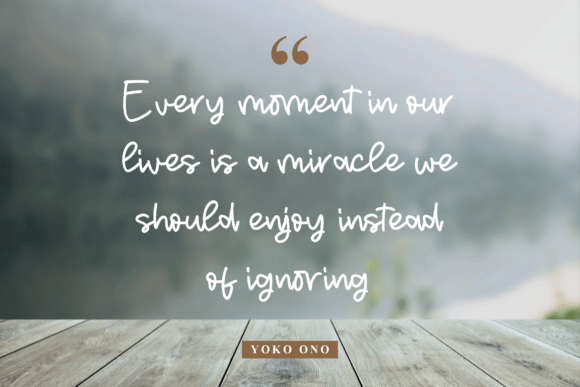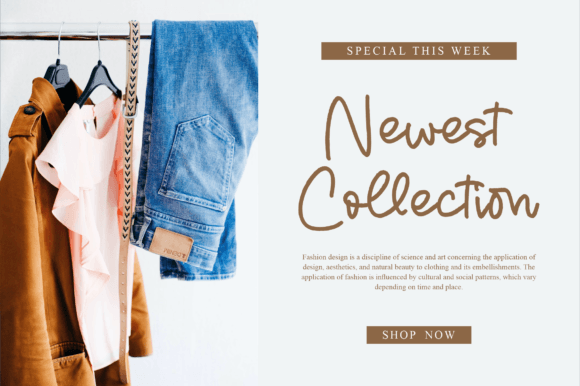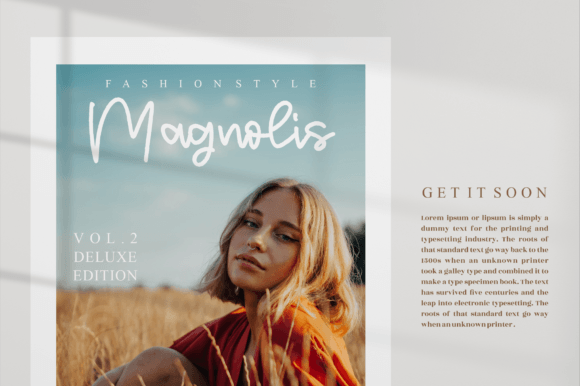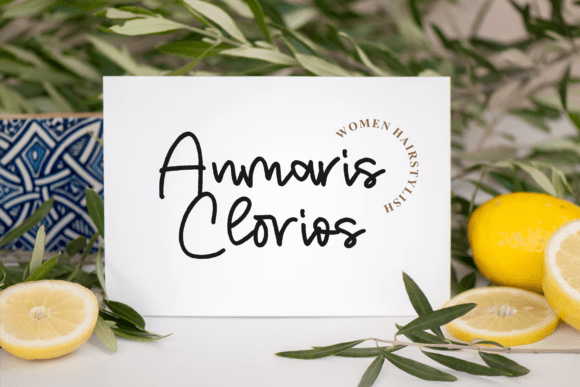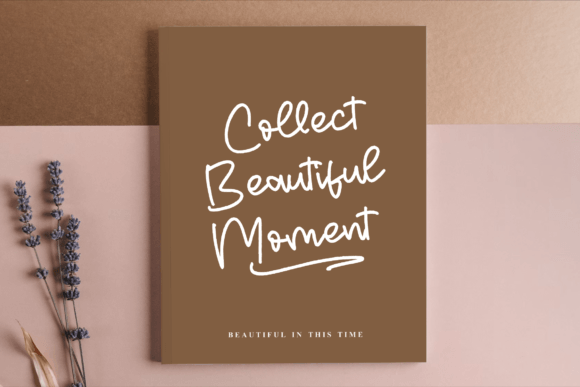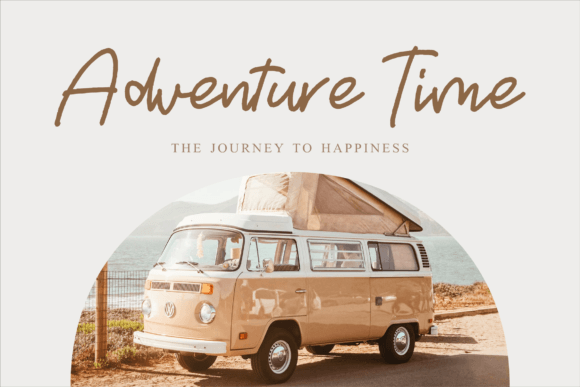
Caballeon Font: The Sweet and Delicate Handwritten Font for Romantic Designs
Are you a designer or crafter looking for a font that can add a touch of romance and elegance to your designs? Look no further than the Caballeon font! This sweet and delicate handwritten font is perfect for creating beautiful wedding invitations, cards, and other designs that require a personalized and romantic touch.
What is Caballeon Font?
Caballeon is a modern handwritten font that is characterized by its dainty and joyful feel. The font is designed to mimic the look of handwritten text, with each letter carefully crafted to create a sense of movement and fluidity. The result is a font that is both elegant and approachable, making it perfect for a wide range of design applications.
Features of Caballeon Font
So, what makes Caballeon font so special? Here are just a few of its key features:
- Sweet and delicate: Caballeon font is characterized by its sweet and delicate feel, making it perfect for designs that require a touch of romance and elegance.
- Handwritten look: The font is designed to mimic the look of handwritten text, with each letter carefully crafted to create a sense of movement and fluidity.
- Dainty and joyful: Caballeon font is both dainty and joyful, making it perfect for designs that require a light and airy feel.
- Romantic and personalized: The font is perfect for designs that require a romantic and personalized touch, such as wedding invitations and cards.
Uses of Caballeon Font
So, what can you use Caballeon font for? The possibilities are endless! Here are just a few ideas to get you started:
- Wedding invitations: Caballeon font is perfect for creating beautiful and elegant wedding invitations that will set the tone for your special day.
- Cards: The font is also great for creating cards for special occasions, such as birthdays, anniversaries, and holidays.
- Stationery: Caballeon font can be used to create beautiful and elegant stationery, including letterheads, notebooks, and journals.
- Digital designs: The font can also be used for digital designs, such as social media graphics, blog posts, and email newsletters.
Why Choose Caballeon Font?
So, why should you choose Caballeon font for your next design project? Here are just a few reasons:
- Unique and elegant: Caballeon font is a unique and elegant font that will add a touch of sophistication to your designs.
- Easy to read: The font is easy to read, even at small sizes, making it perfect for designs that require a lot of text.
- Versatile: Caballeon font can be used for a wide range of design applications, from wedding invitations to digital designs.
- High-quality: The font is high-quality and professionally designed, ensuring that your designs look professional and polished.
Tips for Using Caballeon Font
Here are a few tips for using Caballeon font in your designs:
- Use it sparingly: Caballeon font is a delicate font, so it’s best to use it sparingly to avoid overwhelming your design.
- Pair it with other fonts: The font can be paired with other fonts to create a unique and interesting look.
- Experiment with colors: Caballeon font can be used with a wide range of colors, so don’t be afraid to experiment and find the perfect color for your design.
In conclusion, Caballeon font is a sweet and delicate handwritten font that is perfect for designs that require a romantic and personalized touch. With its dainty and joyful feel, this font is ideal for wedding invitations, cards, and other designs that require a touch of elegance and sophistication. Whether you’re a designer or crafter, Caballeon font is a great choice for your next design project.